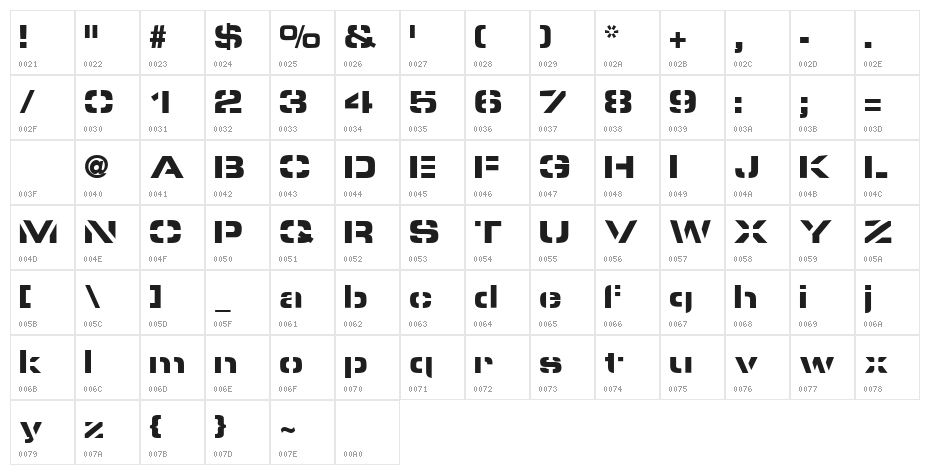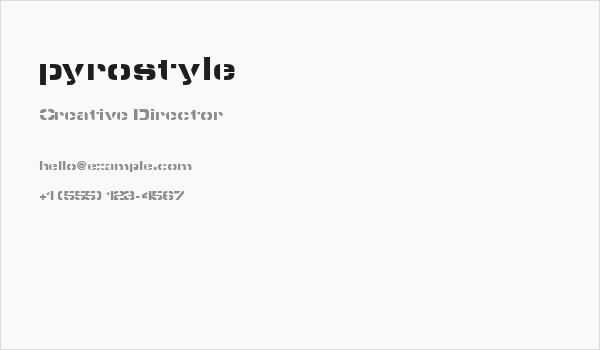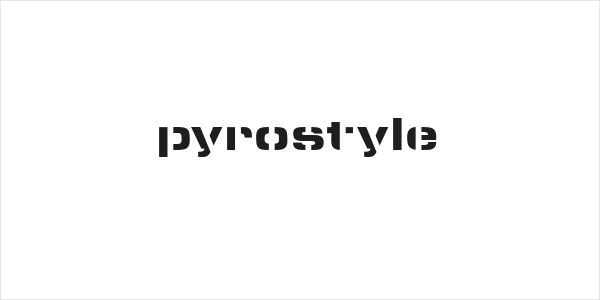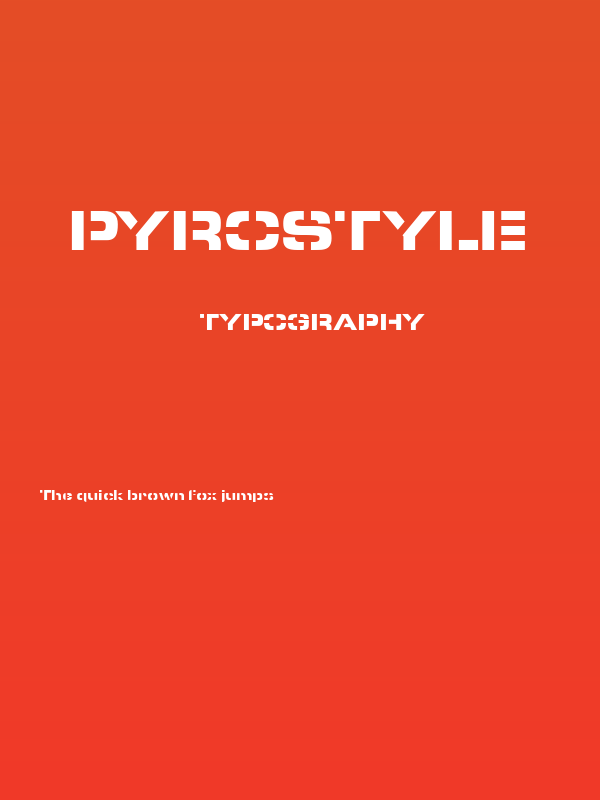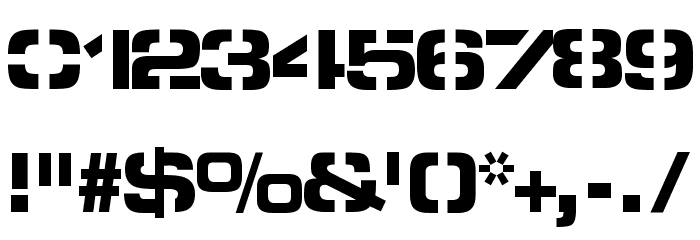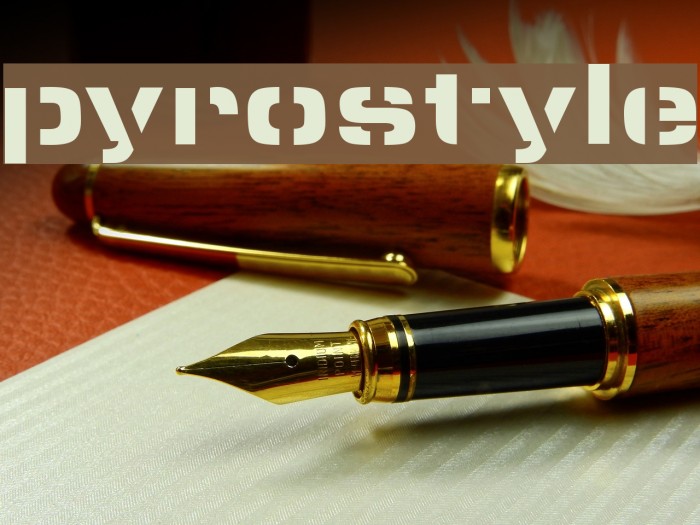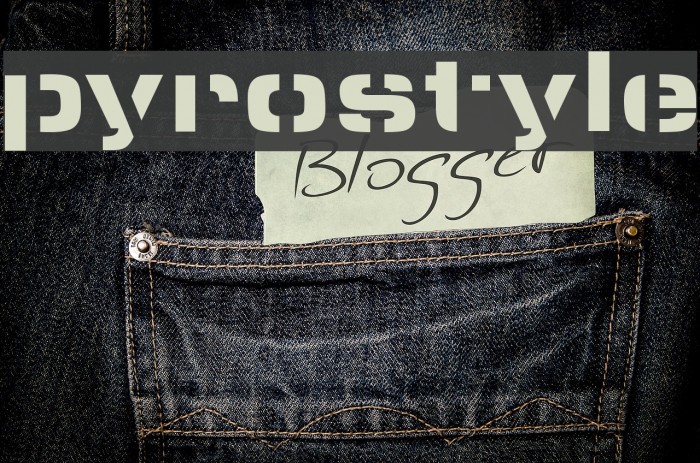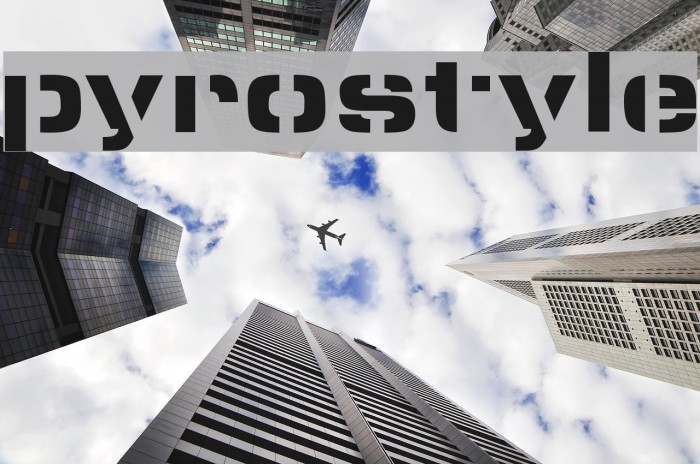
pyrostyle Font
pyrostyle Description
This font features a bold and striking design with a modern, geometric style. The characters are constructed with a stencil-like appearance, incorporating breaks and cuts within the strokes that create a dynamic and industrial feel. The uppercase and lowercase letters maintain a consistent width, enhancing readability while adding a unique visual interest. The numbers and special characters follow the same design principles, ensuring uniformity across all glyphs. This font's boldness and distinctive style make it ideal for attention-grabbing headlines and creative projects.
PYROSTYLE UPPERCASE
PYROSTYLE LOWERCASE
PYROSTYLE OTHER CHARS
| Proposed Projects | Ideal for branding, posters, album covers, and any project requiring a bold, modern aesthetic. |